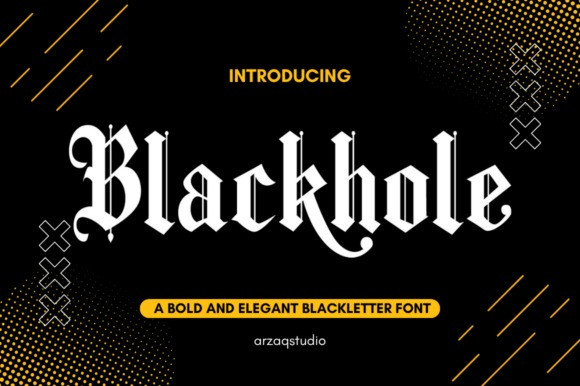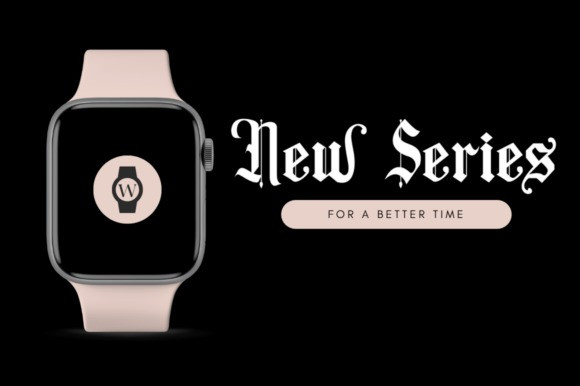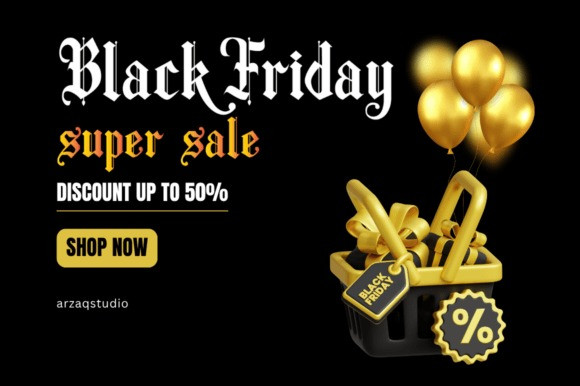
Blackhole Blackletter Font
Blackhole Blackletter Font is a bold and elegant blackletter font that combines classic gothic style with modern strength. Its sharp edges and ornamental details make it perfect for creating eye-catching logos, tattoos, posters, labels, and vintage designs. Whether you’re working on dark-themed artwork, metal band covers, or medieval-inspired branding, Blackhole adds a powerful and dramatic touch to every project. Ideal for designers who want to express authority, mystery, and timeless sophistication.